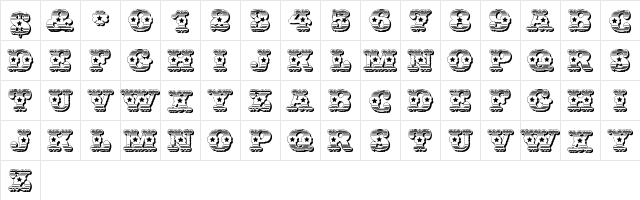
Wild West USA is a composed and adaptable typeface that performs quietly and consistently across a wide range of design contexts.
Pro Tip: Use Wild West USA in both headline and body roles to test its range before committing to a single application.